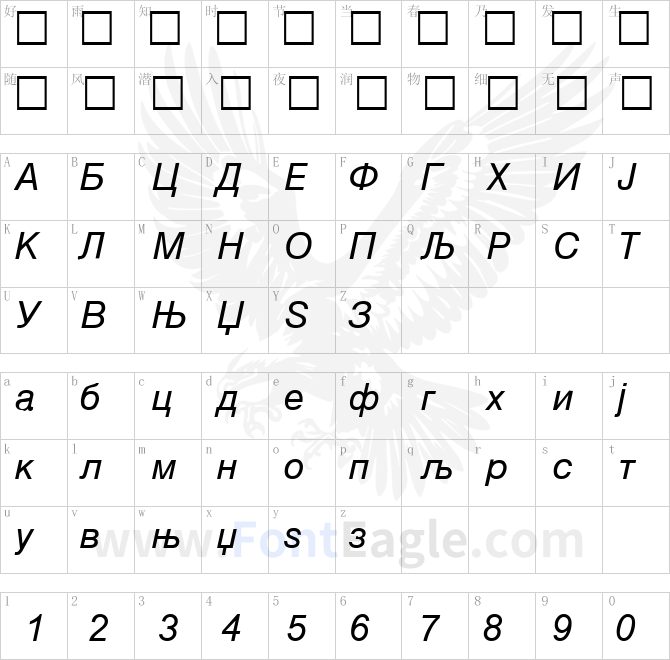
- Font name:Macedonian Helv
- Font Subfamily ID:Inventif:Macedonian Helv Italic
- Font Full Name:Macedonian Helv Italic
- Font Version:Inventif:Macedonian Helv Italic
- Postscript:Macedonian Helv Italic
- Font Copyright:Typeface © Marijanco Galevski — Inventif Systems 1993. All Rights Reserved